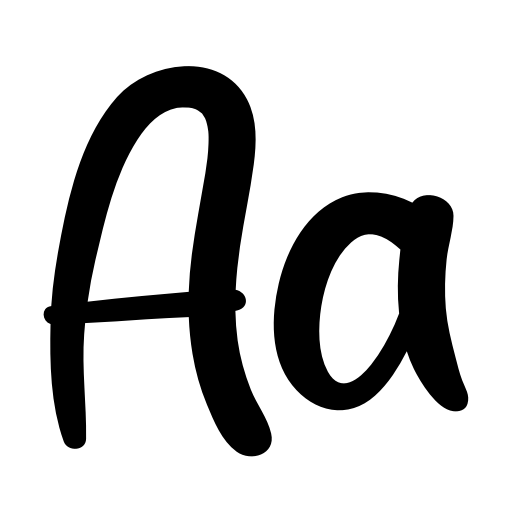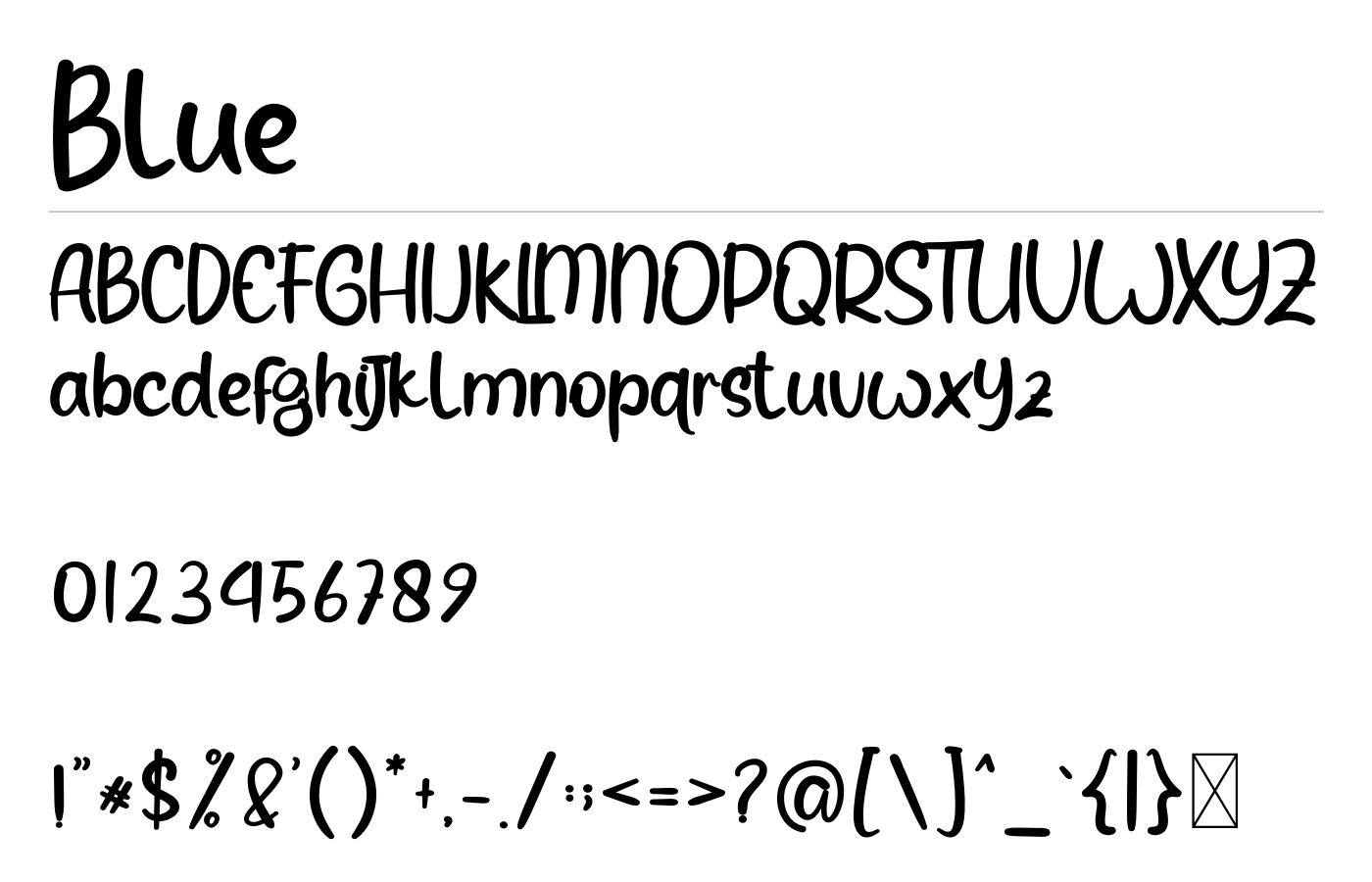
Blue Font is a playful, handwritten sans serif typeface with a lively and casual feel. Its smooth, rounded strokes and consistent medium weight make it approachable and friendly, perfect for informal branding, children's books, and creative projects that need a personal touch. This font works well in headlines and display use, adding warmth and character without sacrificing readability.
Blue Font